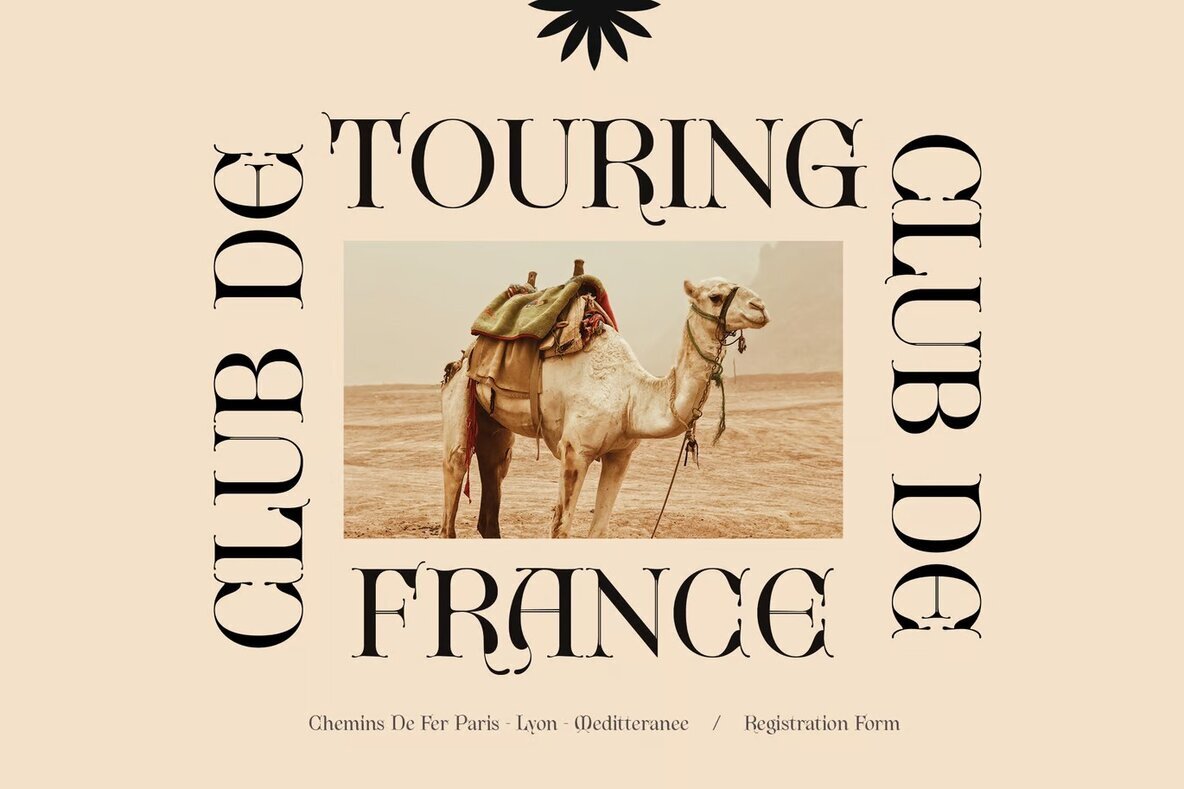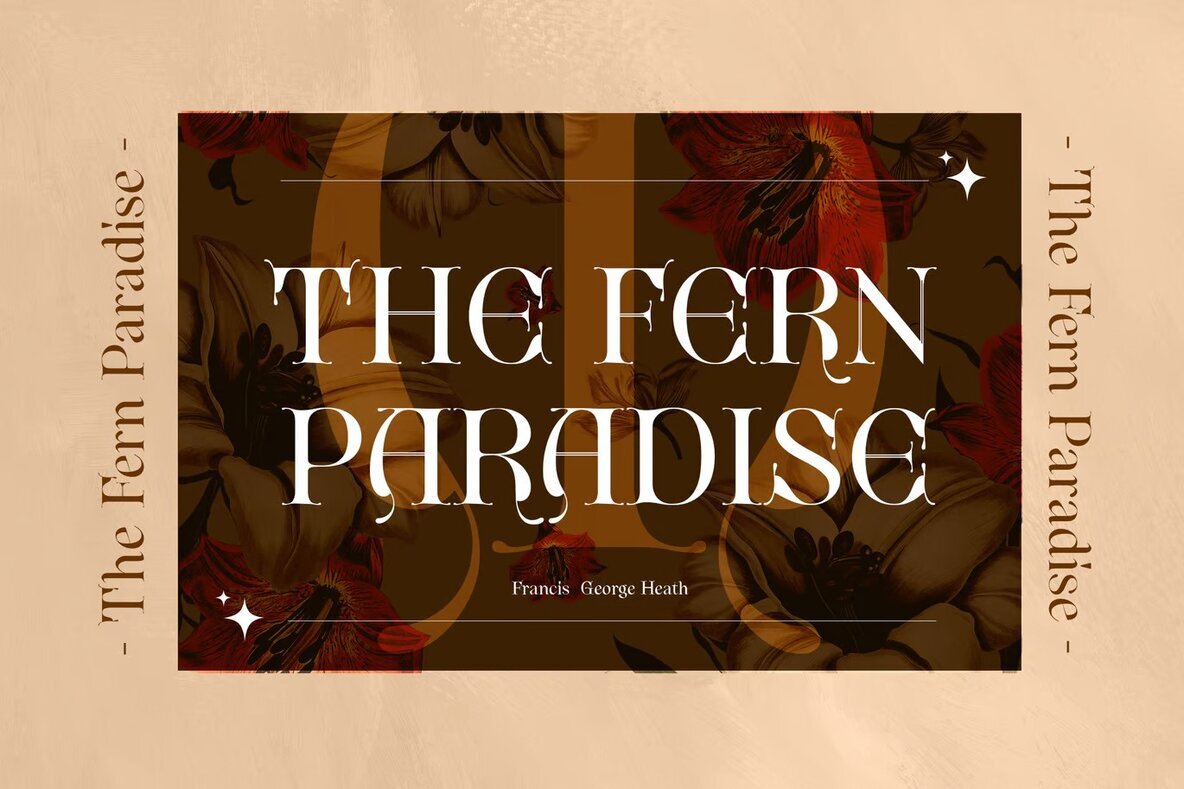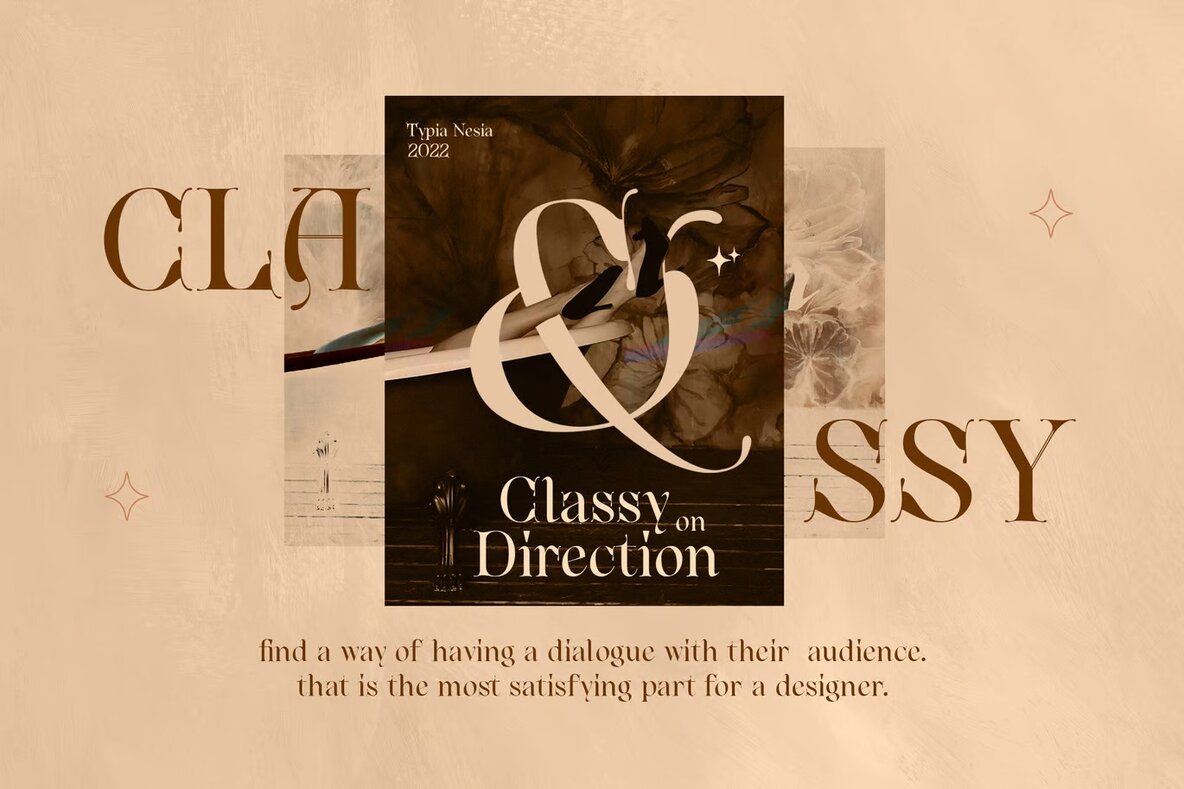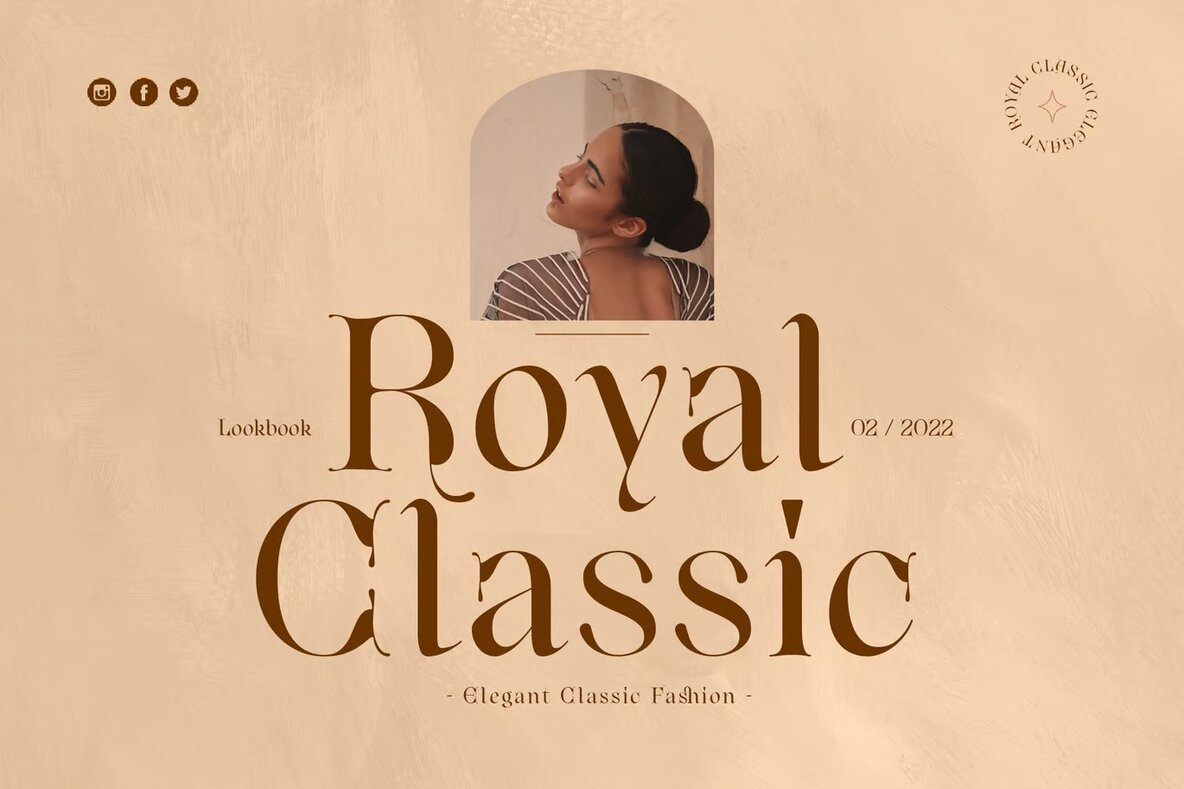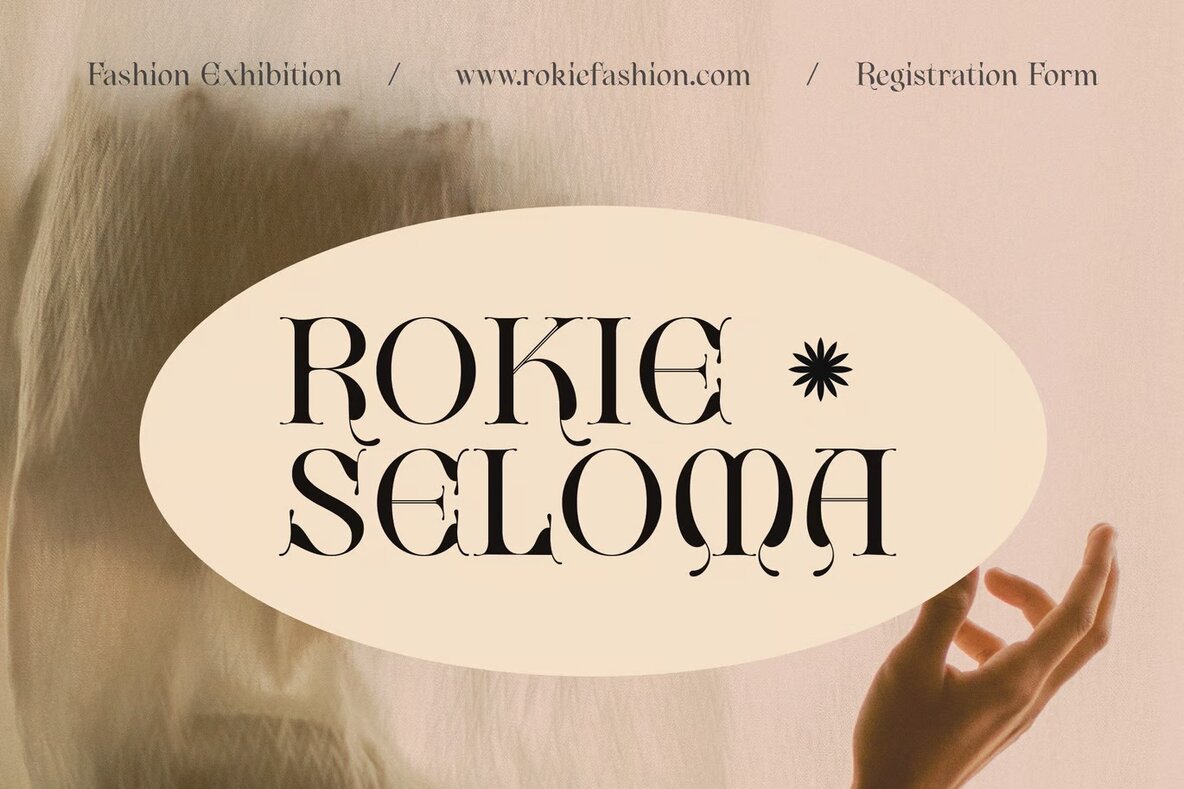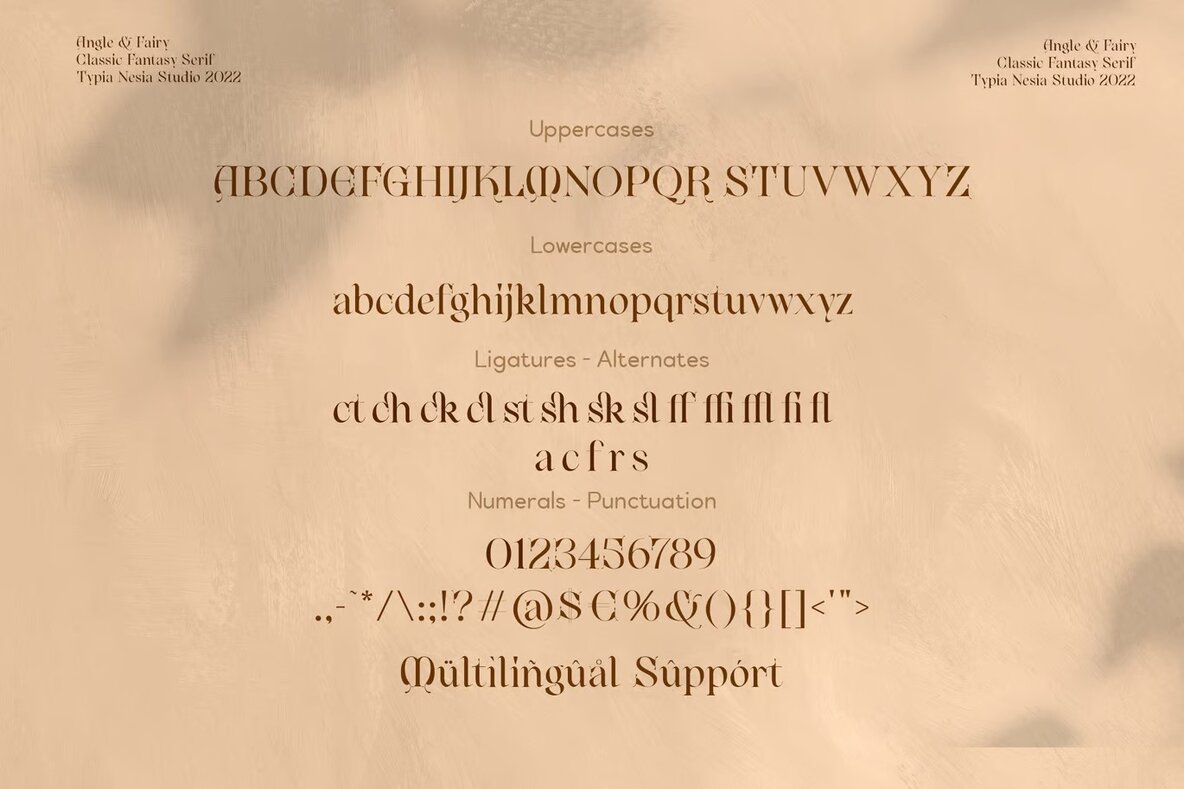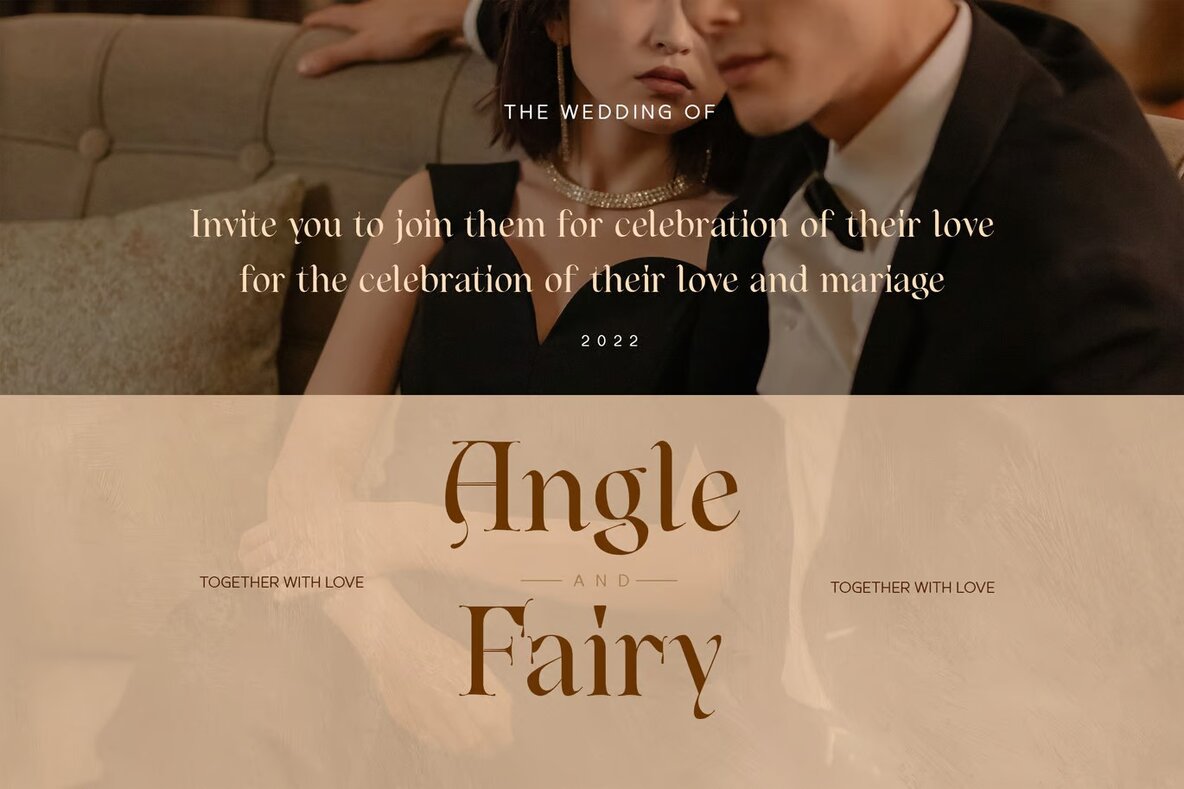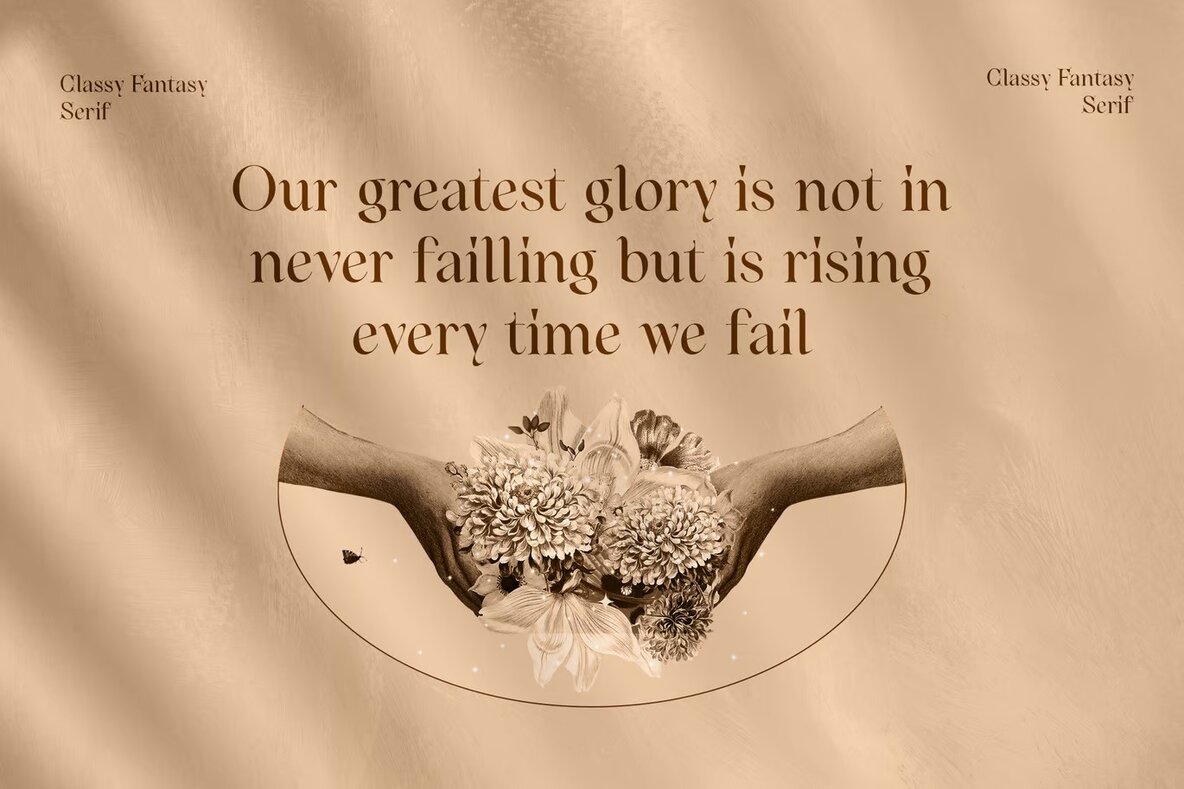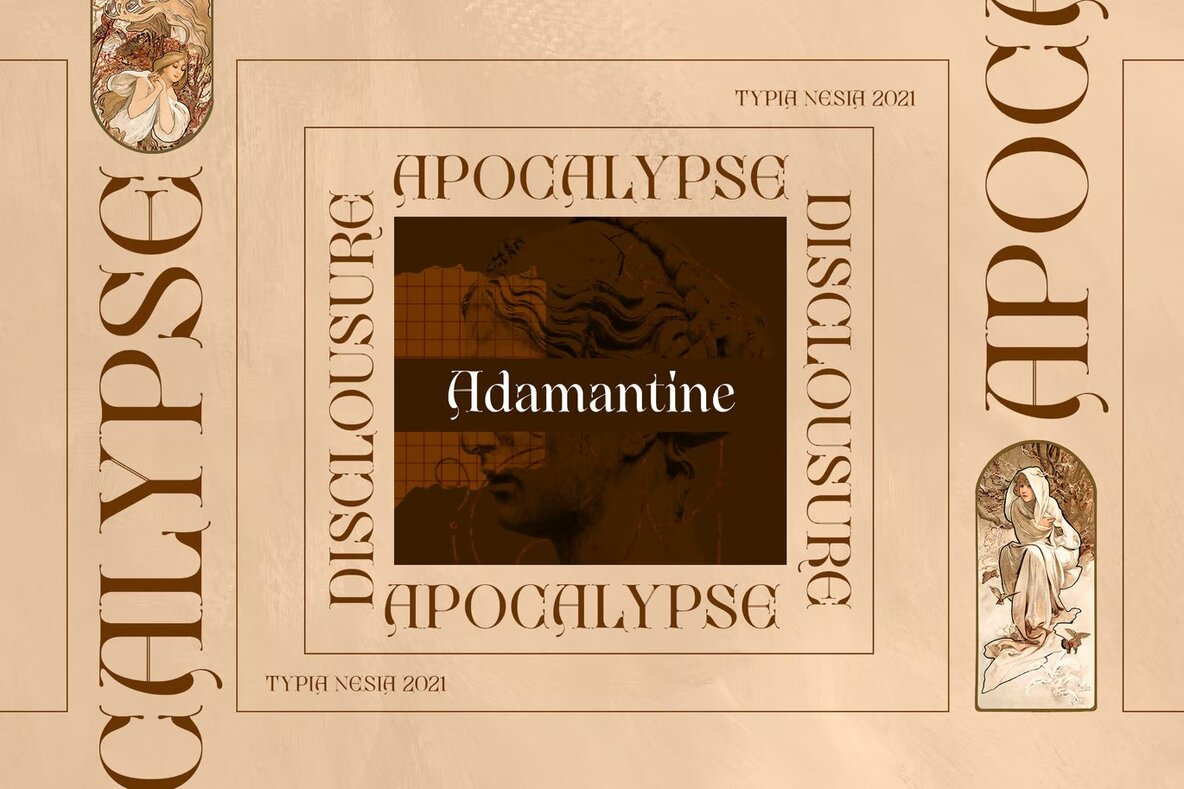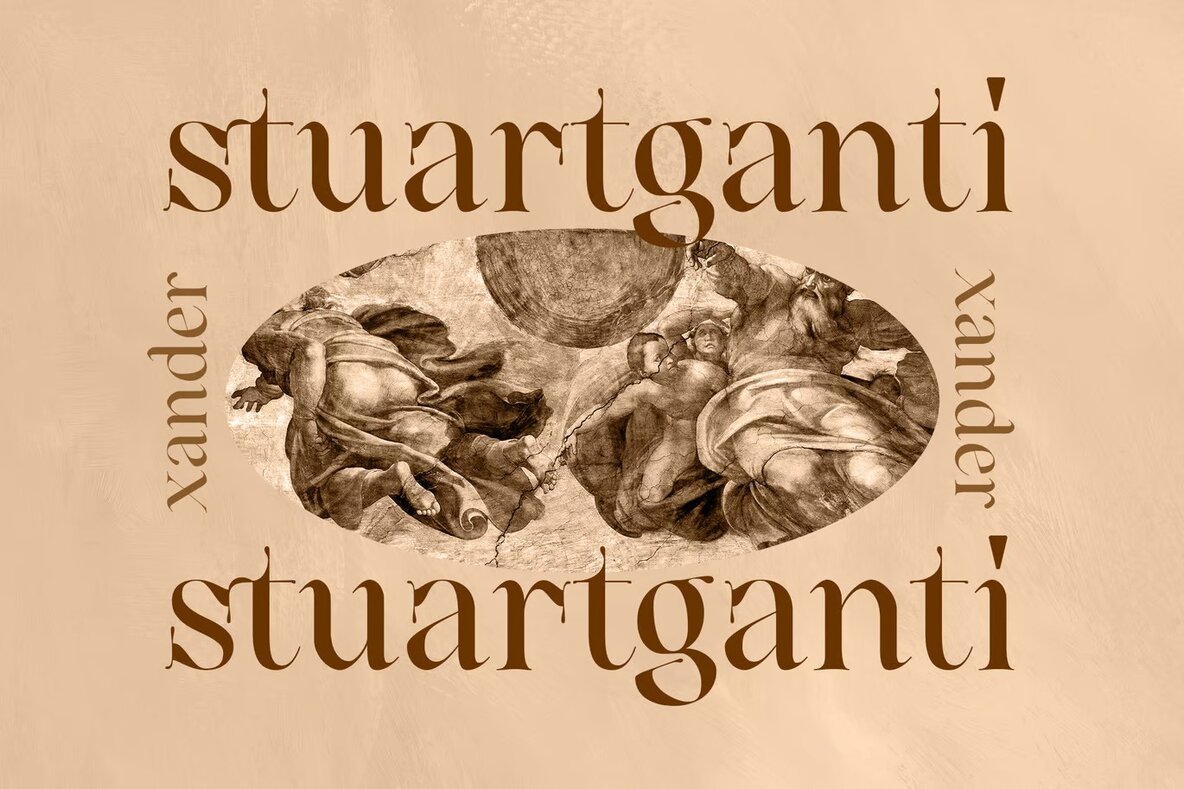
Angle and Fairy Font
Angle and Fairy Regular
Discover a vintage-inspired serif font that exudes classic fantasy charm and royal elegance. This font seamlessly integrates into luxury logo designs, classy editorials, and high-end branding. It's an ideal choice for projects within the realms of fashion, cosmetics, and art galleries, offering a touch of sophistication and a rich historical feel. Its timeless design complements various applications, ensuring your brand stands out with a touch of grandeur.
Perfect for enhancing the aesthetic of books, magazines, and promotional materials, this serif font also adds a captivating allure to home decor and art quotes. Whether designing for special events, fantasy movies, or architectural projects, this font's versatility shines. It ensures your design communicates exactly what you envision, lending a stylish, artistic edge to stationery, invitations, and modern advertisements.